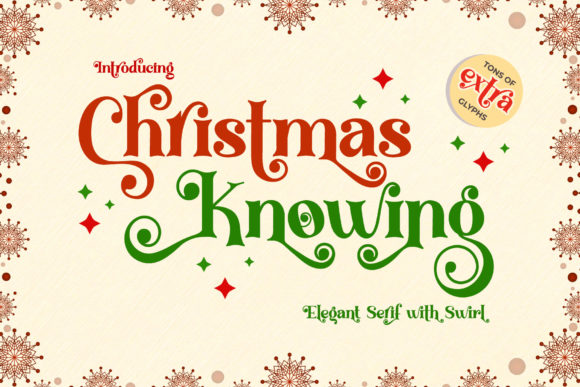
Introducing Christmas Knowing Font, the epitome of elegance and swirliness in the world of fonts! Created by airotype, this serif font is designed to captivate and inspire, making it the ultimate choice for anyone looking to add a touch of sophistication to their projects.
With its extra swirly characters, Christmas Knowing Font offers a unique and mesmerizing aesthetic that will instantly elevate any design. Whether you're creating a wedding invitation, designing a Christmas-themed masterpiece, or crafting a brand identity, this font is your secret weapon to making a lasting impression.
Imagine the joy and excitement that will fill the hearts of your loved ones when they receive an invitation adorned with the enchanting curves of Christmas Knowing Font. Its graceful strokes and intricate details will effortlessly convey the warmth and magic of the holiday season.
But the magic doesn't stop there. Christmas Knowing Font is not limited to festive designs alone. Its versatility knows no bounds, making it the perfect choice for all your creative endeavors. From logos and lettering to crafting projects and stickers, this font will bring your ideas to life in the most captivating way possible.
And here's the best part: Christmas Knowing Font is PUA encoded, giving you quick and easy access to all its glorious glyphs and swashes. No more struggling to find the right characters or compromising on your design vision. With this font, you have the freedom to unleash your creativity and explore endless possibilities.
Whether you're a seasoned designer or just starting your creative journey, Christmas Knowing Font is your ultimate companion. Its timeless elegance combined with its modern flair will set you apart from the crowd and leave a lasting impression on anyone who lays eyes on your creations.